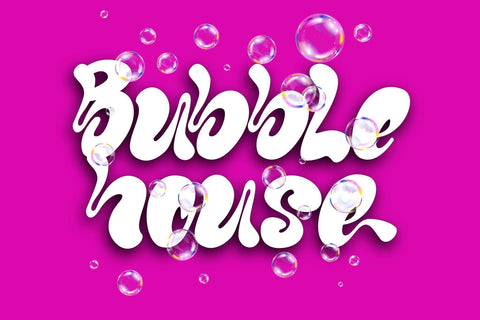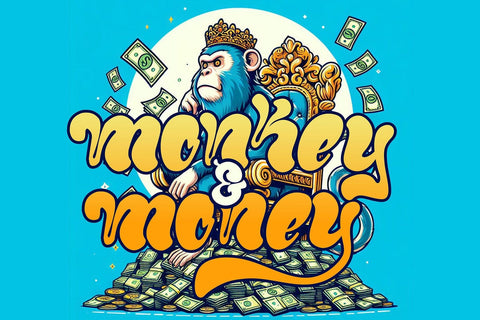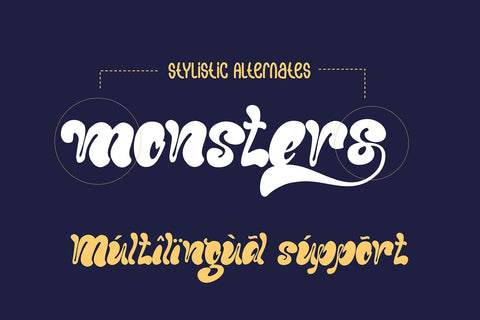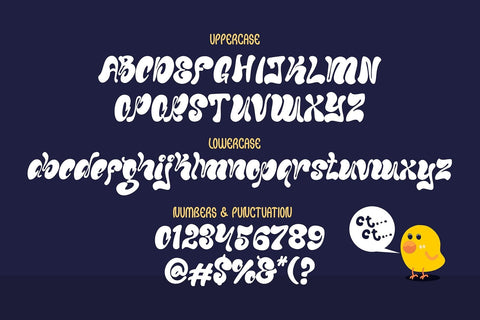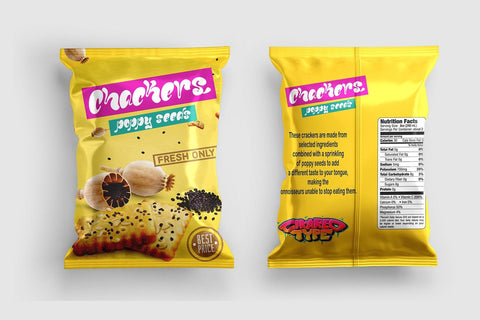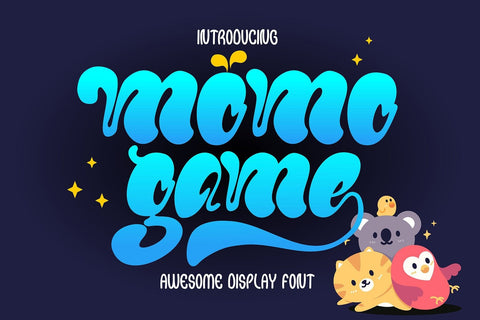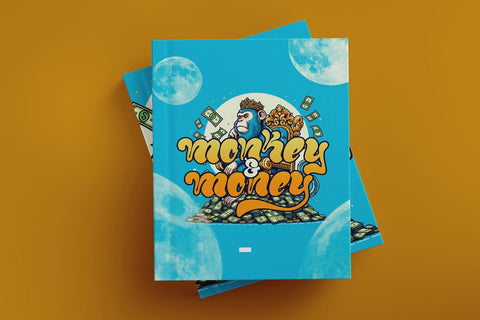
Momo Game - Groovy Display Font
"Momo Game" is an endearing display font characterized by its cute and chubby characters, complete with stylistic alternates. This playful typeface exudes a whimsical charm, making it perfect for projects that require a fun and friendly vibe. With its dynamic typography and included stylistic alternates, "Momo Game" offers versatility and character, allowing designers to create eye-catching designs with ease. Whether used for children's books, playful branding, or cheerful posters, this font adds a touch of charm and personality to any project, making it a delightful choice for designers seeking a quirky and dynamic typeface.
- Graffiti Characters looks